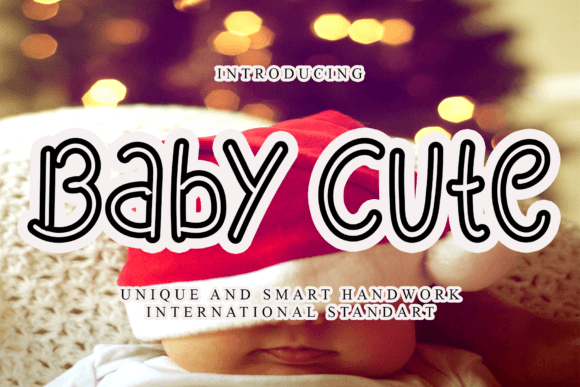
Baby Cute Font for Headlines, Posters and Branding Projects
Baby Cute is a joyful display font designed to brighten any headline, poster, or branding project. With rounded edges and a bold, friendly style, it brings instant playfulness and charm to visual designs targeting youth, parenting, or creative industries. Its whimsical appearance makes it an ideal choice for children's products, party invitations, and family-oriented events. The baby love font for designs ensures that your message resonates with warmth and affection, captivating the hearts of your audience. Perfect for both digital and print applications, this font elevates any creative endeavor with its lively presence.
This font is optimized for large-format impact—perfect for editorial layouts, event flyers, and brand identities that want to feel accessible, whimsical, and full of personality.
- Event posters and birthday invitations
- Product packaging for children’s goods
- Educational charts, books, and labels
- Branding for toy stores and kid-focused apps
- Social media banners and colorful headers
- Fun, bubbly design perfect for youthful themes
- Excellent readability at large sizes
- Balanced spacing and clean curves
- Great fit for both print and digital media
- Works well in colorful, playful branding
A: Yes. Baby Cute is made for headlines and posters with strong visibility and friendly curves.